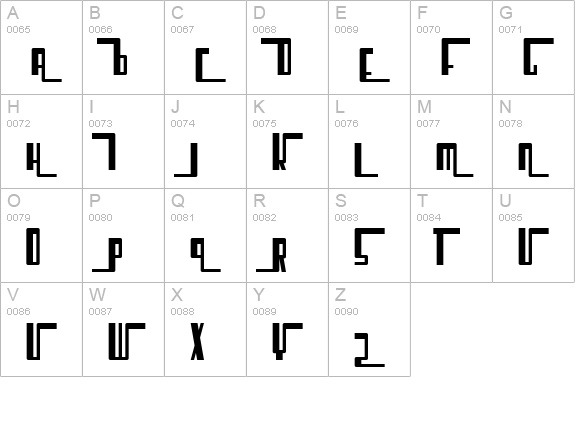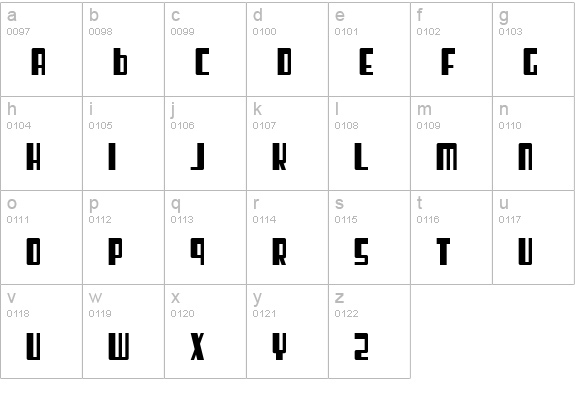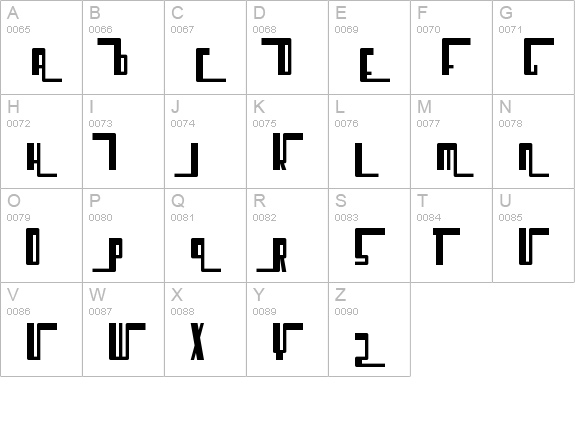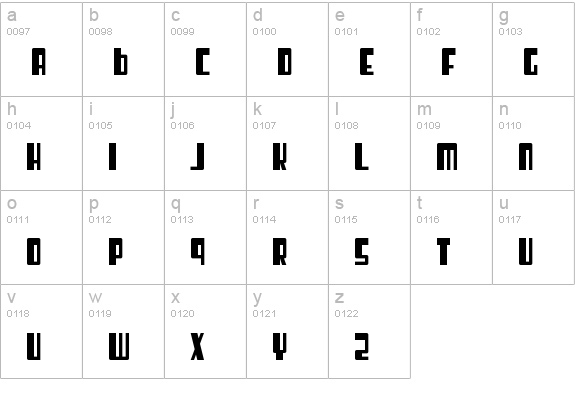
SF Cosmic Age CondUpright Font Details
Introducing the SF Cosmic Age CondUpright font, a captivating typeface that effortlessly combines futuristic vibes with classic elegance. This font is designed to transport your creative projects into the depths of the cosmic age, where imagination knows no bounds. With its condensed and upright letterforms, SF Cosmic Age CondUpright exudes a sense of sleekness and modernity. The clean lines and geometric shapes create a visually striking appearance, making it perfect for a wide range of design applications. Whether you're working on a science fiction book cover, a futuristic logo, or a cutting-edge website, this font will add a touch of cosmic allure to your creations. But what truly sets SF Cosmic Age CondUpright apart is its versatility and accessibility. The font is freely available to download at FontsMarket.com, ensuring that you can easily incorporate it into your projects without any restrictions. This means that you can unleash your creativity without any limitations, exploring the limitless possibilities that the cosmic age has to offer. The SF Cosmic Age CondUpright font is a testament to the power of imagination and the boundless nature of the cosmos. It invites you to break free from the constraints of the present and embark on a journey into the unknown. So go ahead, download this captivating font and let your creativity soar to new heights. The cosmic age awaits, and SF Cosmic Age CondUpright is your ticket to explore its wonders.